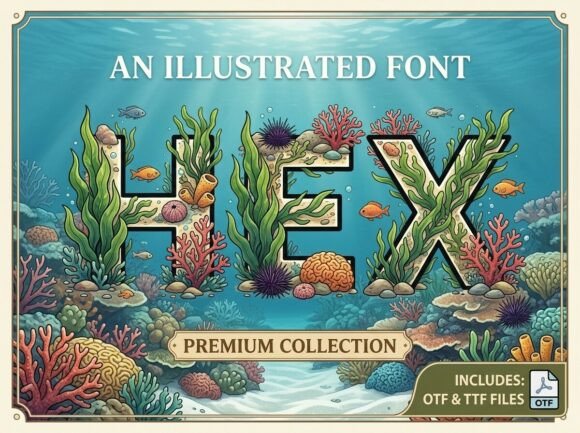
Introduction to Hex Font
Explore the vibrant mysteries of the deep with Hex, a premium illustrated display font that transforms every character into a thriving coral ecosystem.
This unique typeface features bold, clean-lined sans-serif letterforms that serve as a vibrant habitat for hand-drawn marine life—swaying kelp forests, prickly sea urchins, intricate brain corals, and colorful tropical fish With its “naturalist-explorer” aesthetic and stunning visual detail, Hex is the premier choice for educational marine branding, boutique aquarium identities, high-impact environmental posters, and cinematic “ocean-odyssey” social media headers.